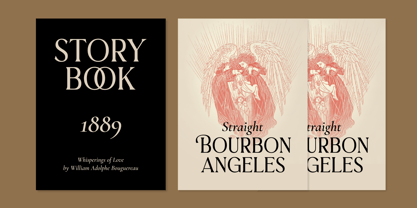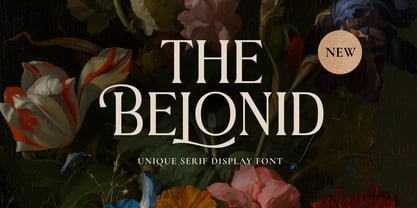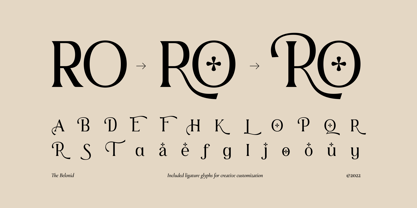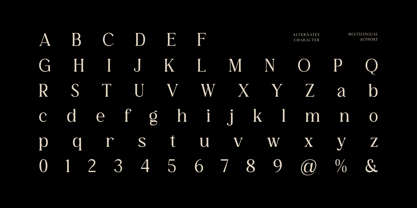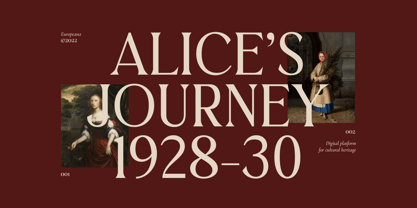
The Belonid
by Imoodev
The The Belonid Font Family was designed by Aulia Savira Putri and published by Imoodev. The Belonid contains 1 styles. More about this family
The Belonid is a serif display font is a refined serif typeface that epitomizes elegance and sophistication. It beautifully merges a classic design with a modern aesthetic, characterized by pointed terminals and elongated serifs, which lend it a high-fashion appeal with a elegant touch.
Designers: Aulia Savira Putri
Foundry: Imoodev